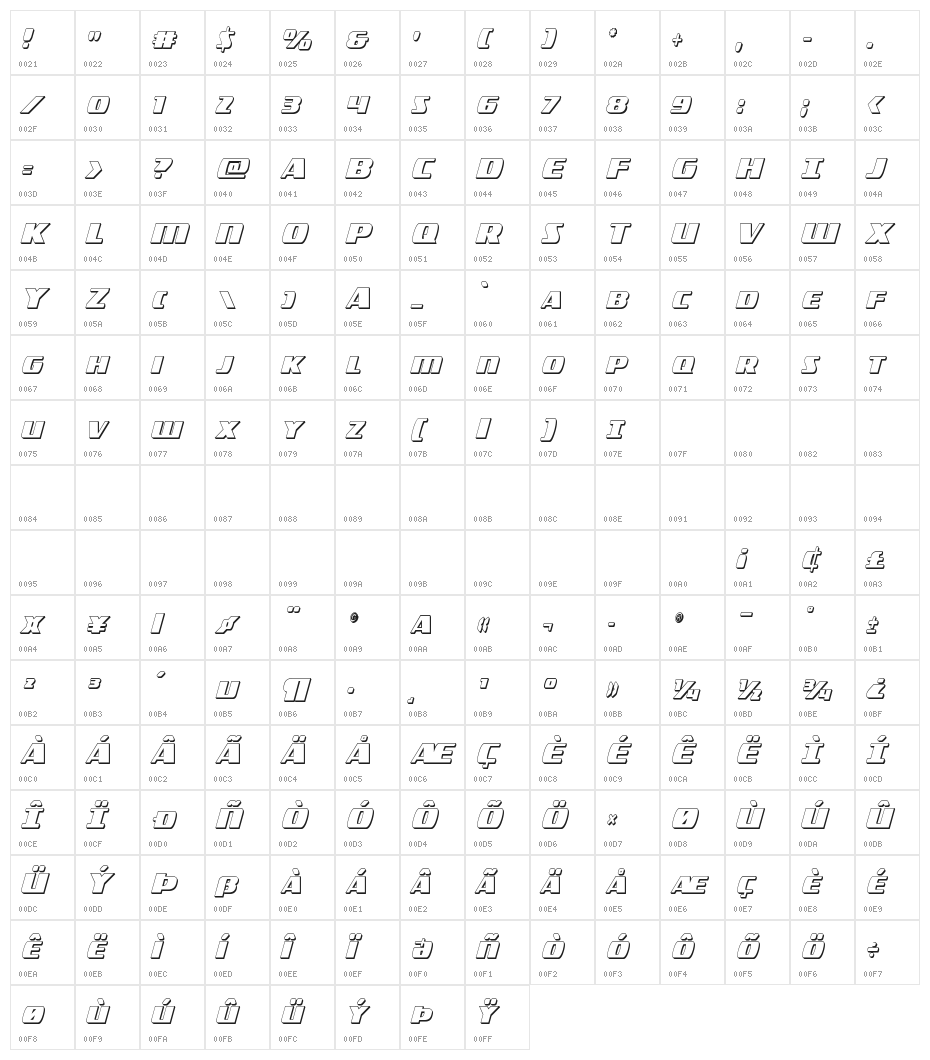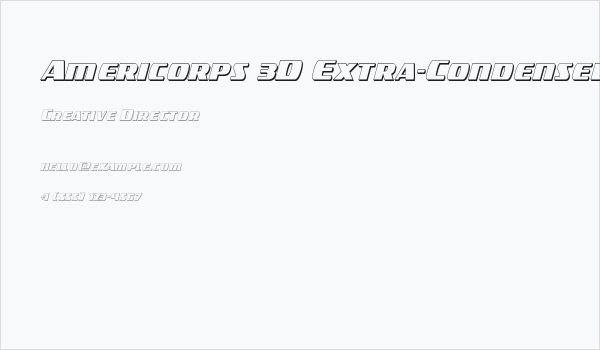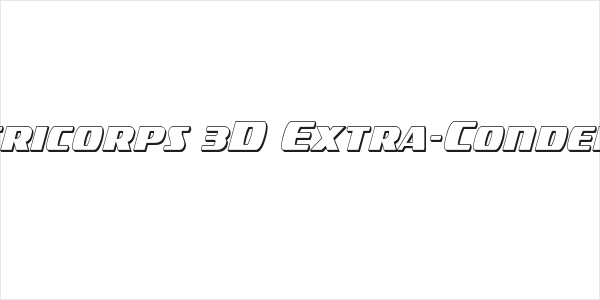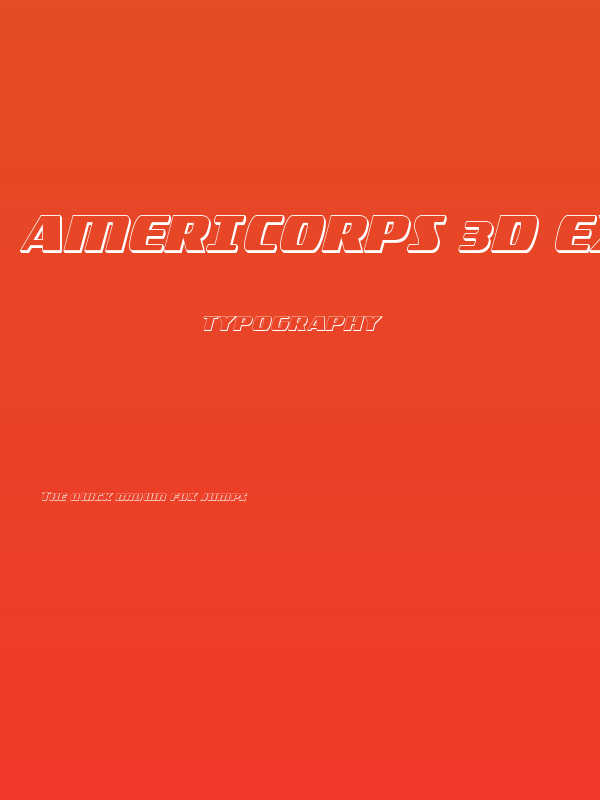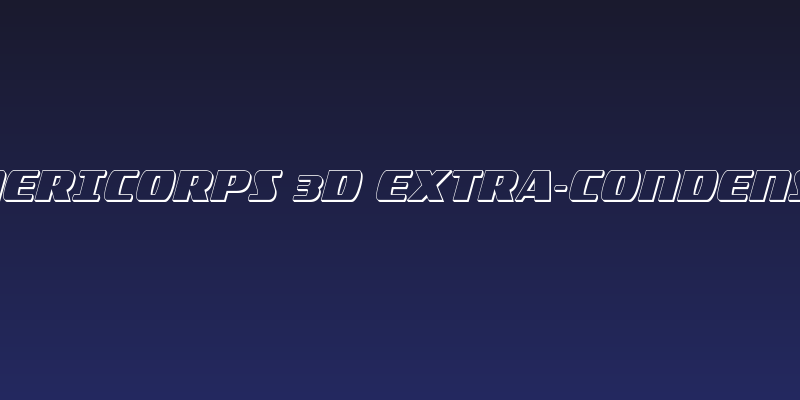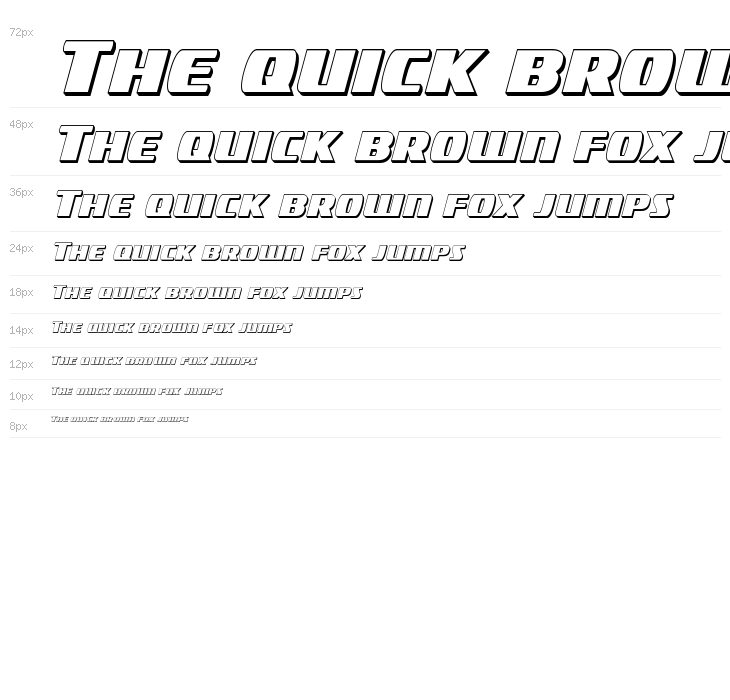
Americorps 3D Extra-Condensed Font
Americorps 3D Extra-Condensed Description
This font features a bold, three-dimensional style with an extra-condensed width. The characters are outlined, giving them a striking appearance that stands out prominently. The design is angular and geometric, with sharp edges and a modern aesthetic. The uppercase and lowercase letters maintain a consistent style, while the numerals and special characters complement the overall look. This font is ideal for creating impactful headlines and attention-grabbing designs.
| Proposed Projects | Ideal for branding, posters, and any design requiring a bold, modern look. |